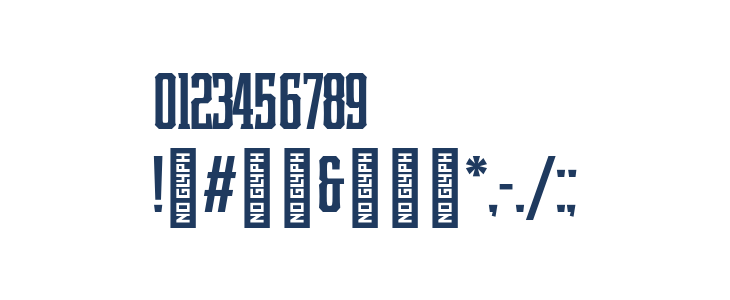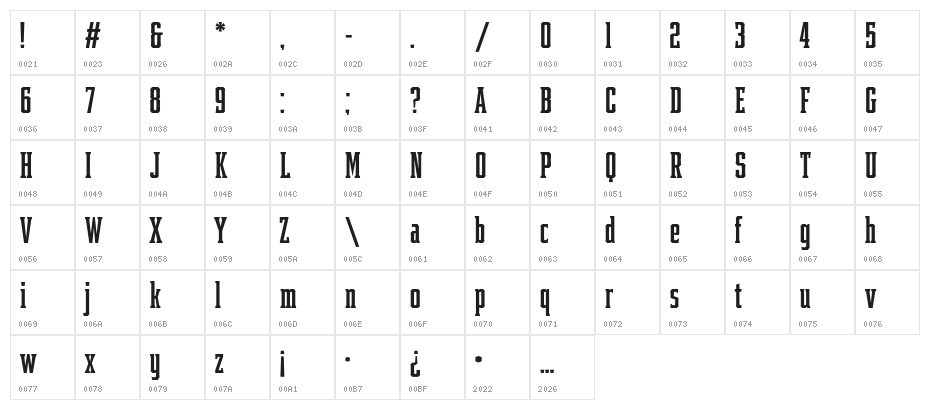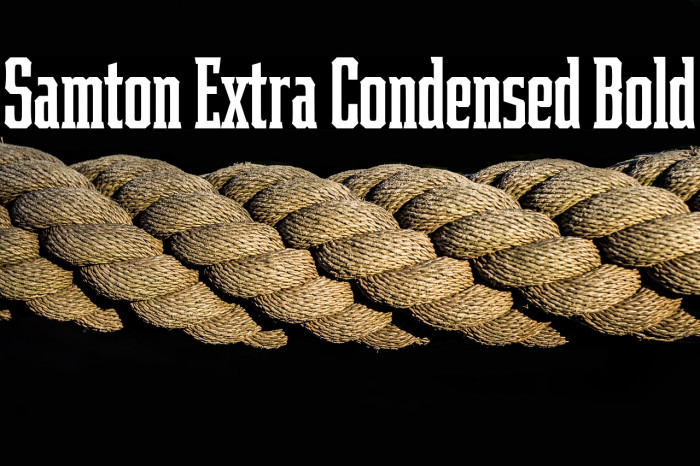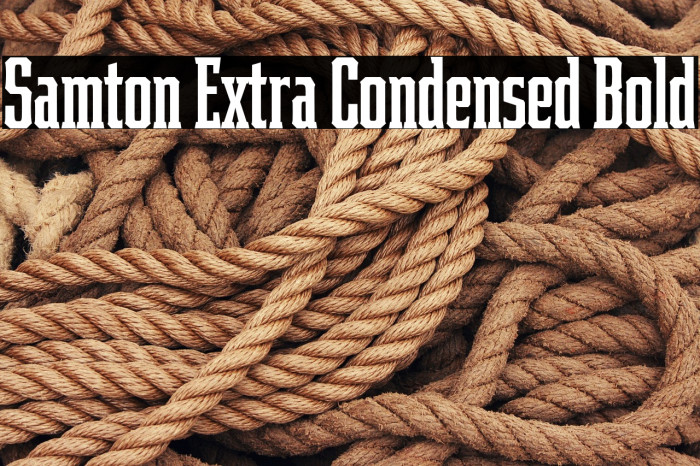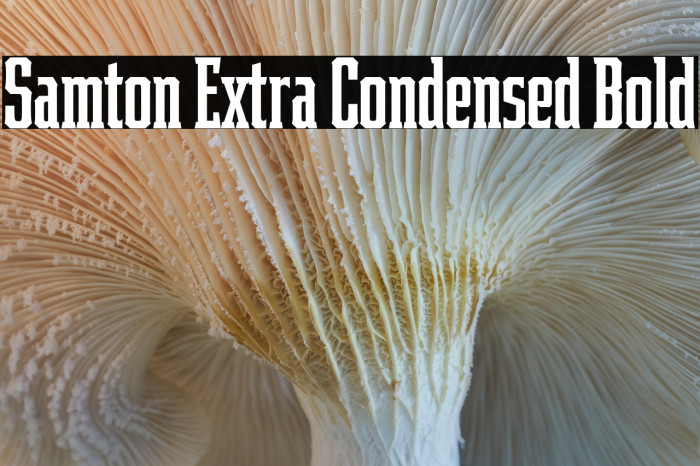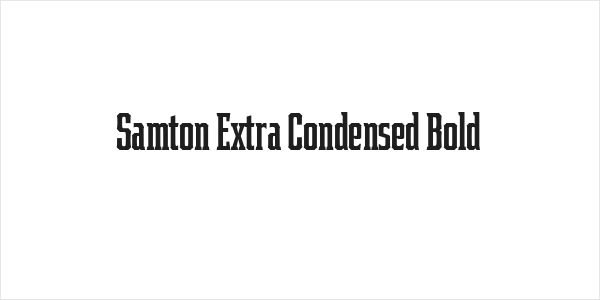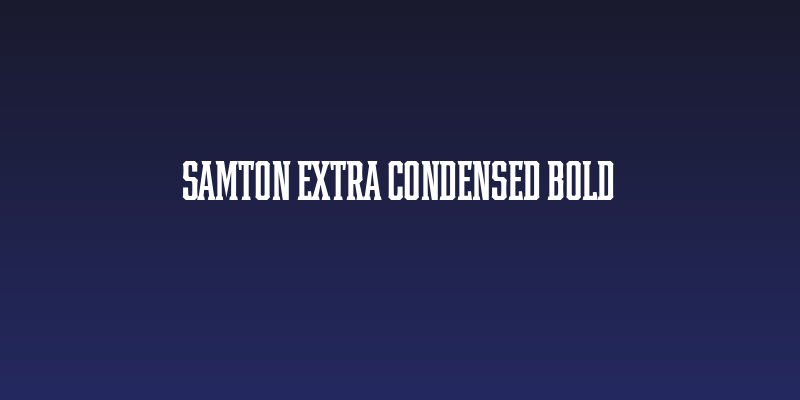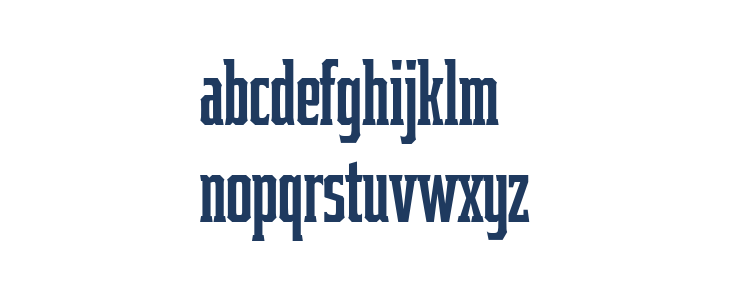
Samton Extra Condensed Bold Font
Samton Extra Condensed Bold Description
This font features an extra-condensed, bold style with a distinct, strong presence. The uppercase letters are tall and narrow, emphasizing verticality and creating a striking appearance. The lowercase letters maintain the condensed form, ensuring consistency across the typeface. Numbers are similarly styled, offering a cohesive look. The special characters are designed to match the bold and condensed aesthetic, making them suitable for impactful designs. The overall style is modern and assertive, ideal for making a statement.
Proposed ProjectsIdeal for headlines, posters, branding, and any project requiring a strong visual impact.